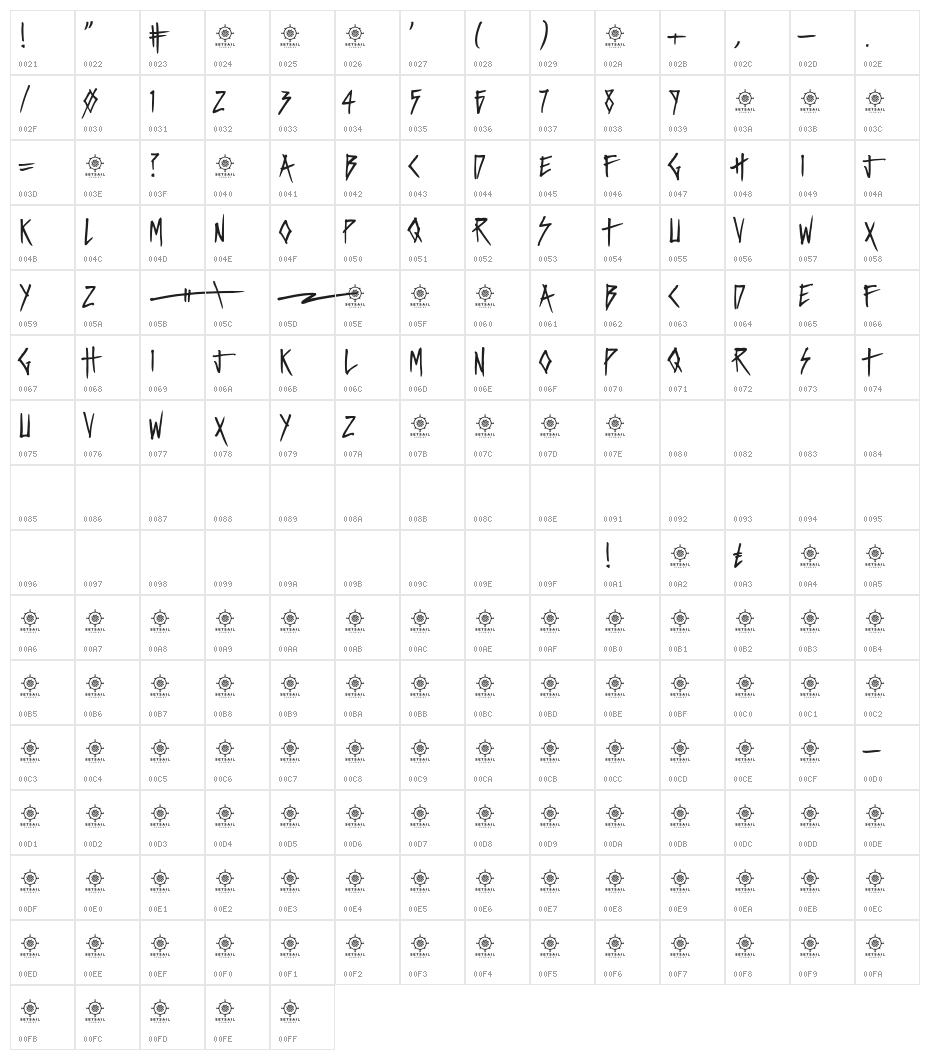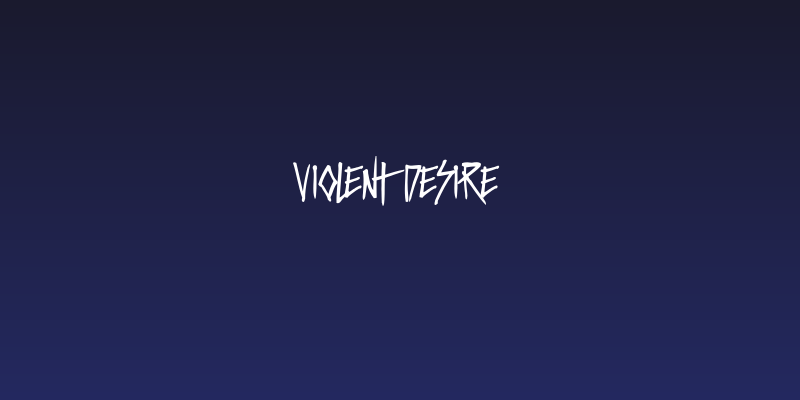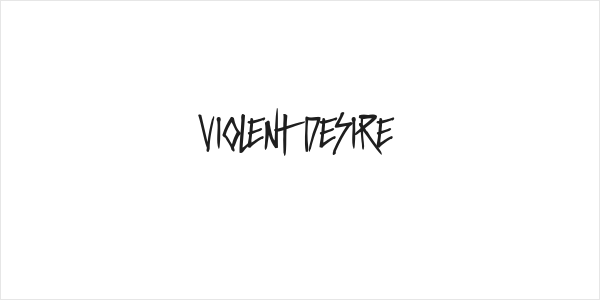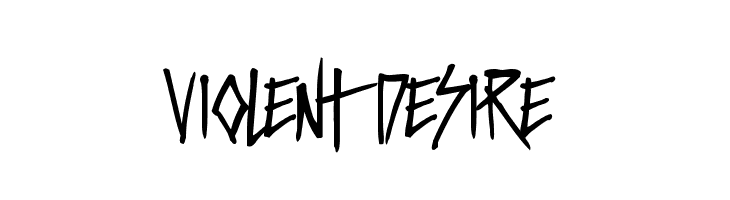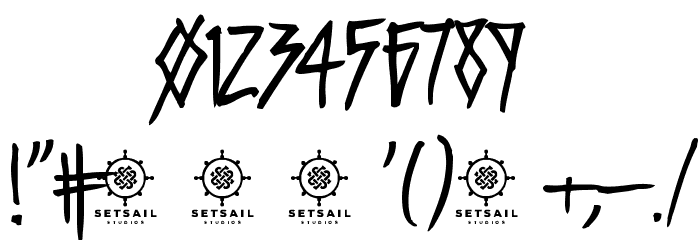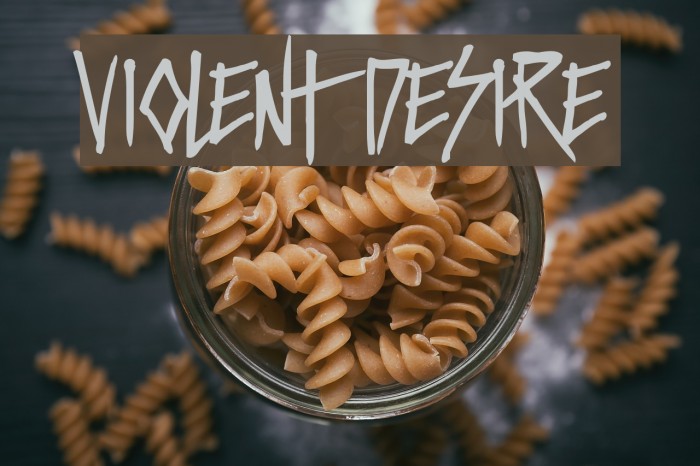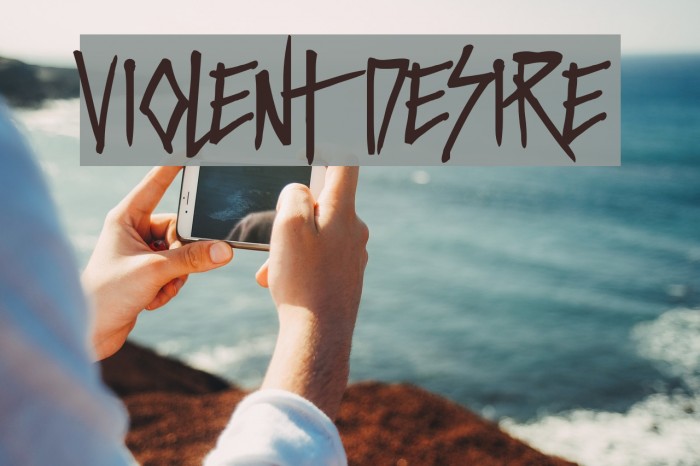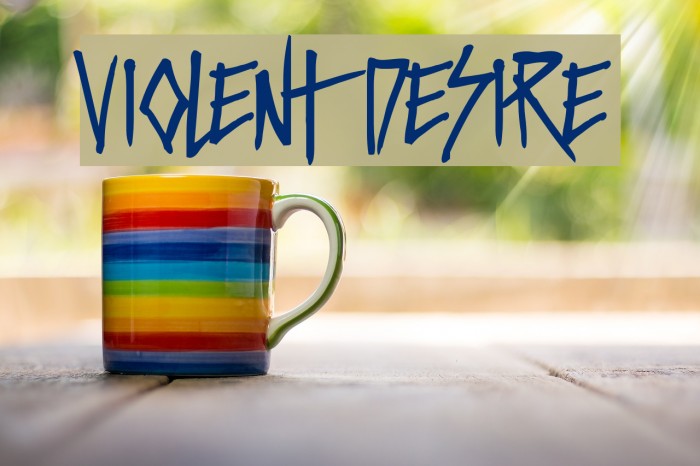
VIOLENT DESIRE Font
VIOLENT DESIRE Description
This font features a bold and aggressive style with sharp, angular lines and a graffiti-like appearance. The characters are highly stylized, with exaggerated strokes that give it a dynamic and edgy feel. The uppercase and lowercase letters maintain a consistent design, emphasizing the rebellious and raw aesthetic. The numerals and special characters follow the same theme, ensuring a cohesive look across all elements. This font is ideal for projects that require a strong, impactful visual presence.
| Overall Style | Modern, Edgy |
| Proposed Projects | Perfect for album covers, streetwear branding, posters, and any project needing a bold, edgy statement. |